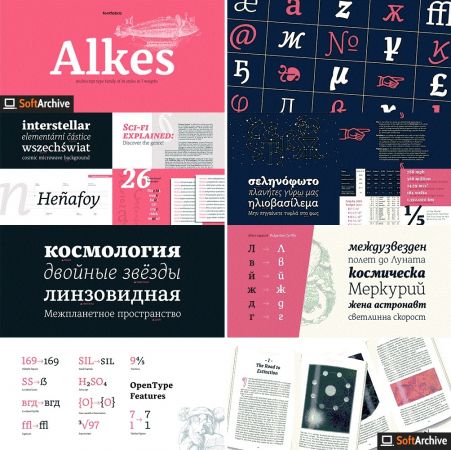
Named after a star and inspired by the cosmos, Alkes traveled a long way from a graduation project to a published multiscript serif type family.
Designed with the intention of harmonising between three scripts - Latin, Cyrillic and Greek, the contemporary, yet well defined humanist serif combines
the best out of the digital and analog worlds.
Features:
• Over 1200 gyphs in 14 styles;
• True form of italics;
• Humanist character and proportions;
• Extended Latin, Extended Cyrillic & Greek scripts;
• For more than 130 languages
• Moderate contrast;
• Perfect for text, headlines and web;
• Coverage of many OpenType features
• Ligatures, Small Caps, Case sensitive forms, OldStyle figures, Tabular figures, Fractions